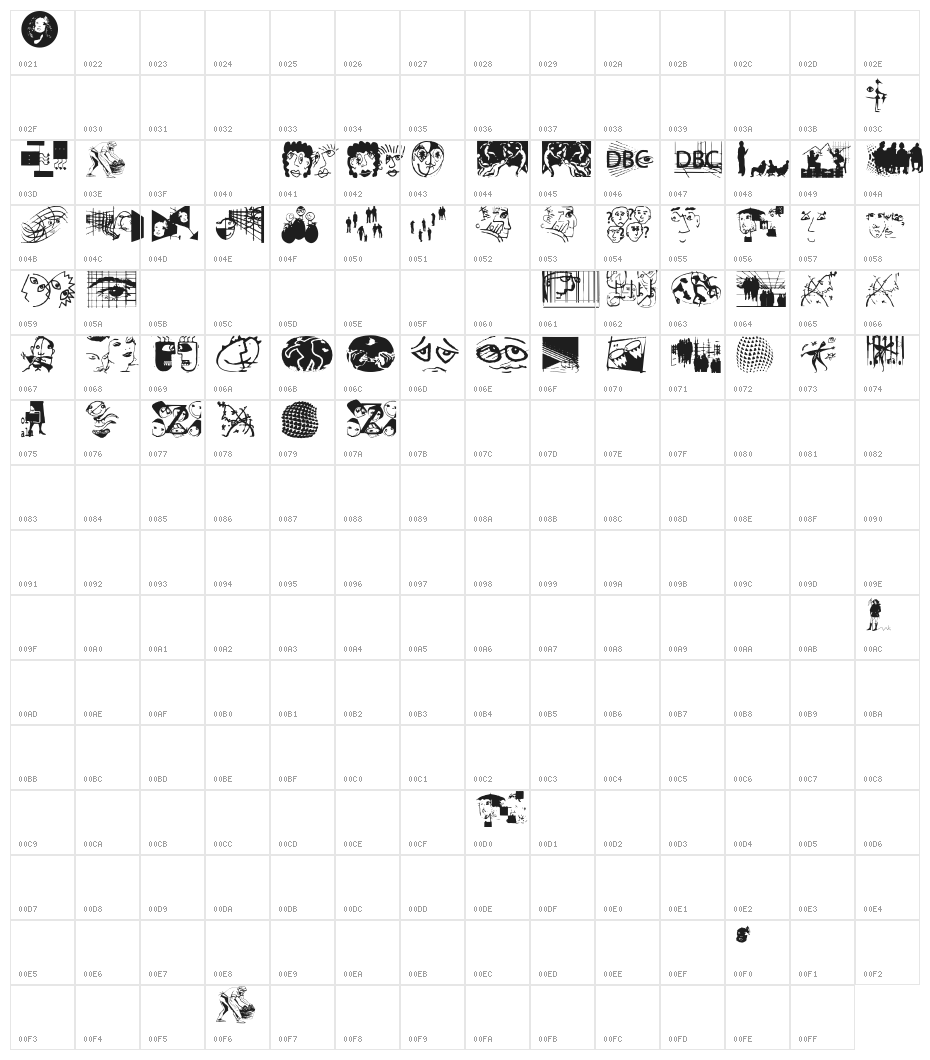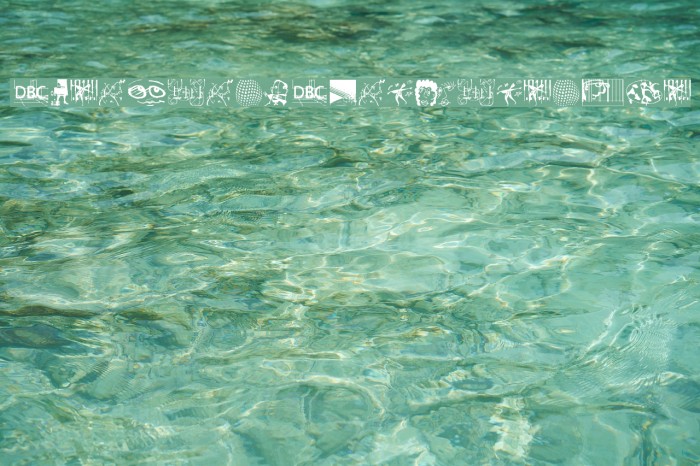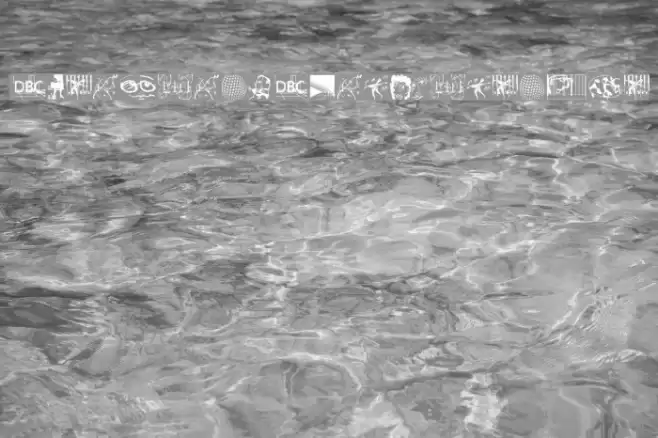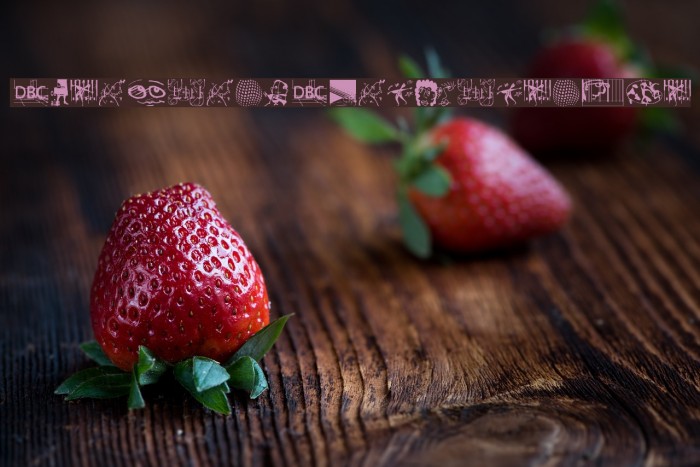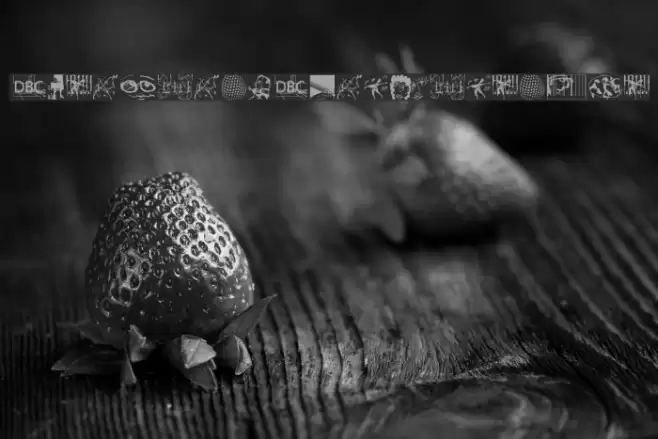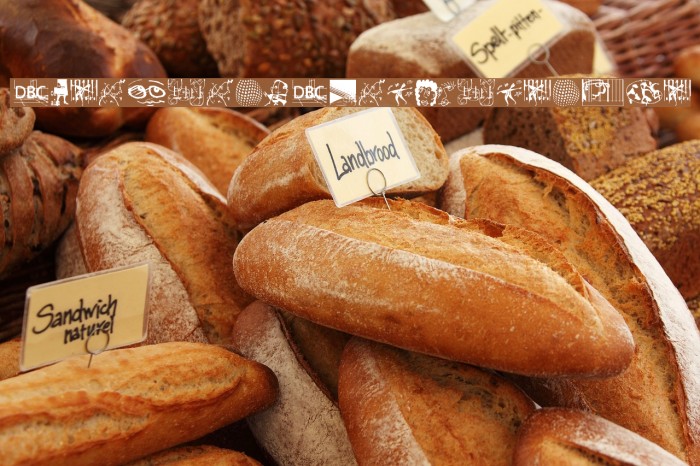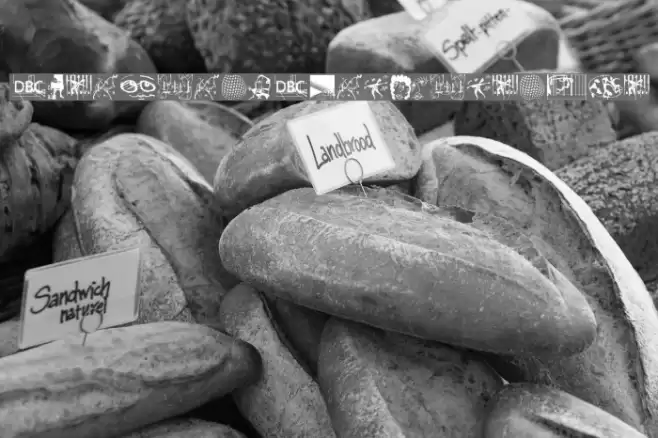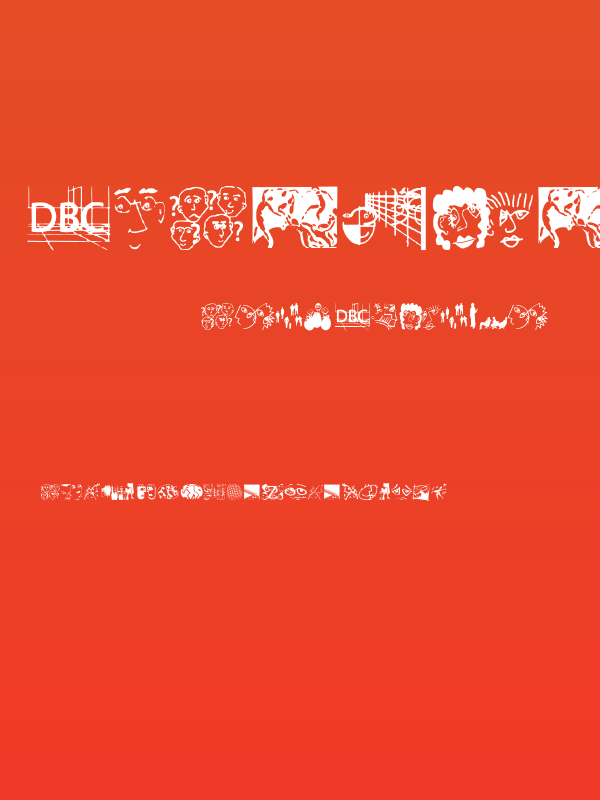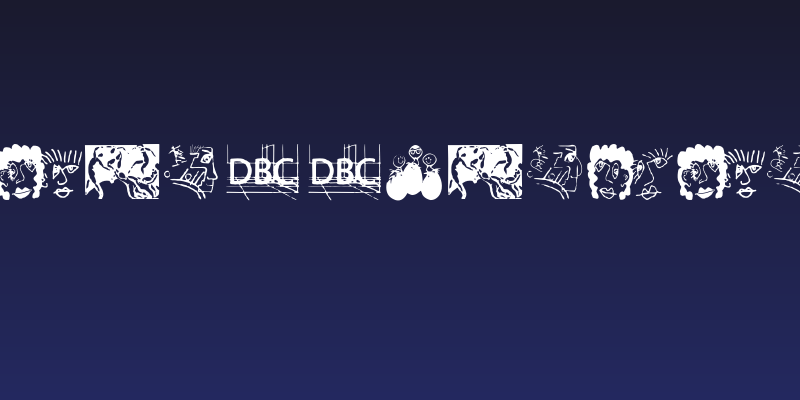
GutenbergGoesAbstract Font
GutenbergGoesAbstract Description
This is not a traditional font but rather a collection of abstract and artistic symbols. Each character is represented by a unique graphic design, incorporating elements such as faces, geometric shapes, and abstract patterns. The designs are intricate and vary significantly from one character to the next, making it more of an art piece than a functional typeface. The overall style is eclectic and avant-garde, suitable for creative and unconventional projects.
| Overall Style | Avant-garde, Artistic |
| Use Case | Artistic projects, Creative displays |
| Proposed Projects | Art installations, graphic design projects, creative branding, and experimental digital art. |